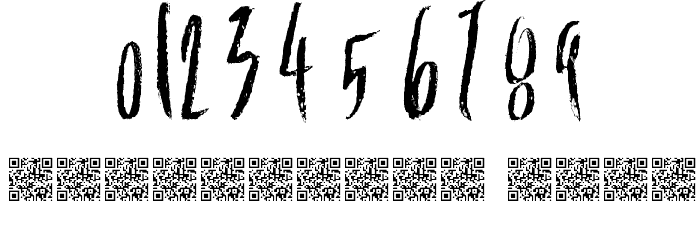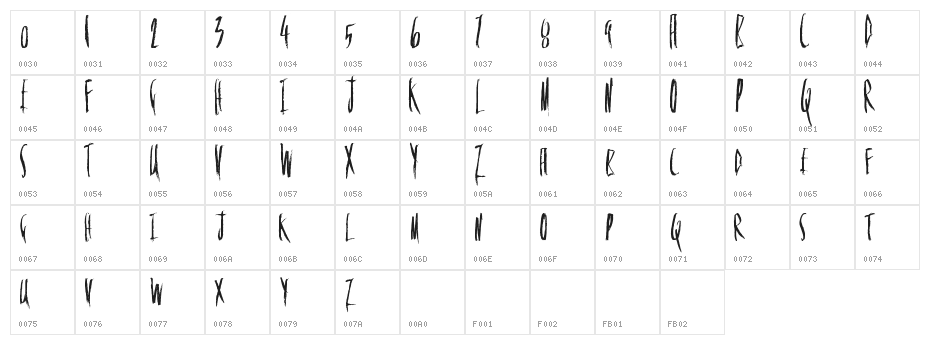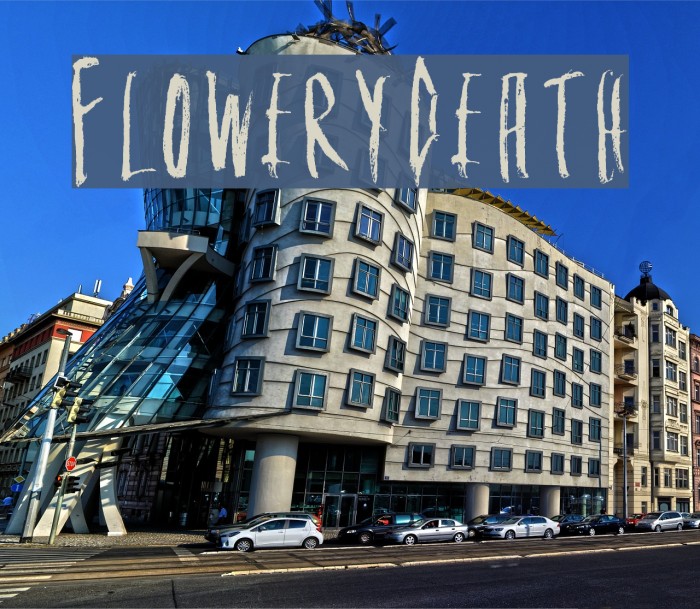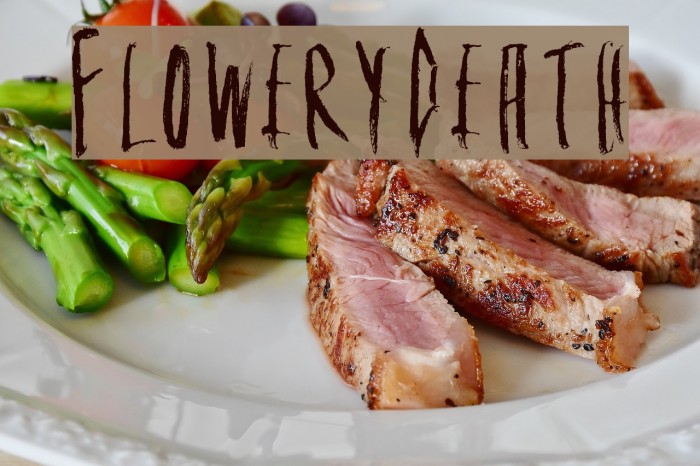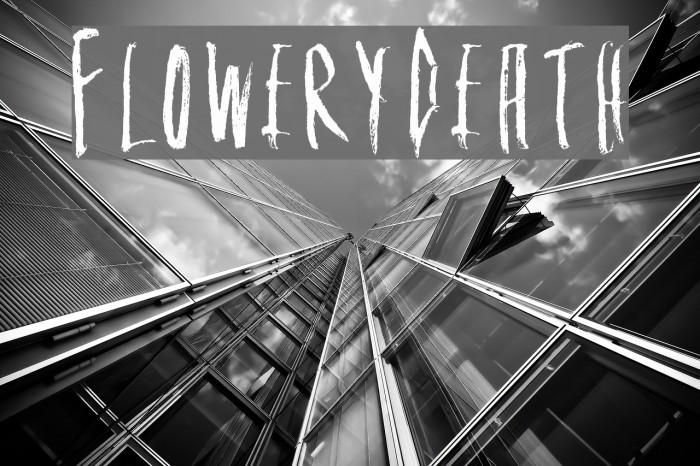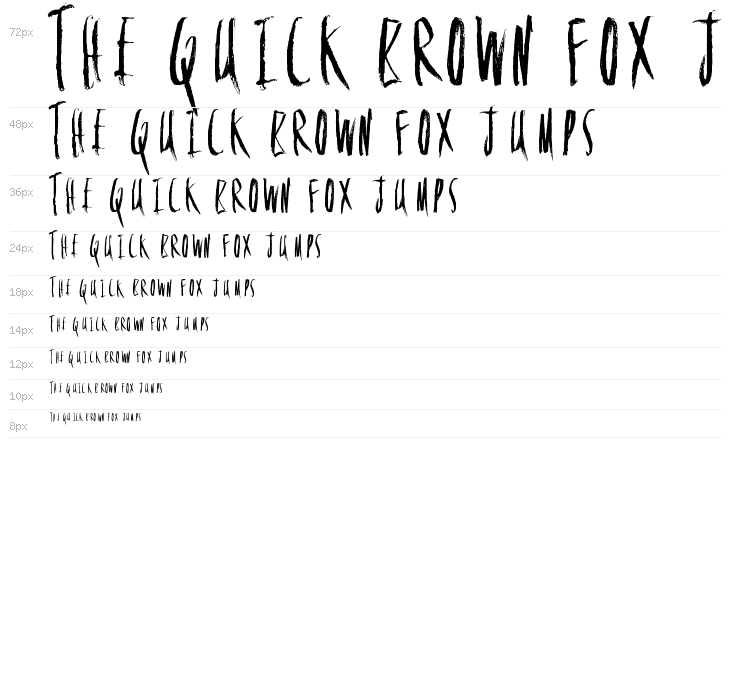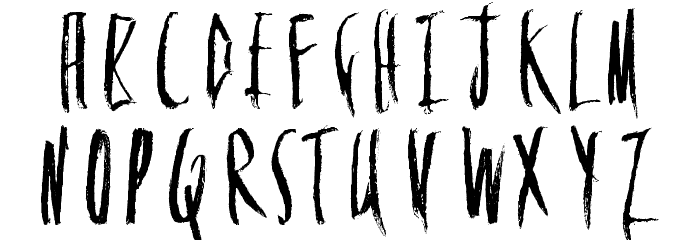
FloweryDeath Font
FloweryDeath Description
This font features a dramatic and edgy design, characterized by sharp, jagged edges and an uneven baseline that gives it a hand-drawn, distressed appearance. The letters are tall and narrow, with a rough texture that suggests a sense of urgency and intensity. The uppercase and lowercase letters maintain a consistent style, with exaggerated ascenders and descenders that add to the chaotic yet artistic feel. Numbers and special characters follow the same aesthetic, making the font cohesive and versatile for creative projects. Its unique style makes it suitable for designs that require a bold and unconventional look, such as album covers, posters, and edgy branding materials.
| Proposed Projects | Ideal for album covers, posters, edgy branding, and creative projects requiring a bold statement. |